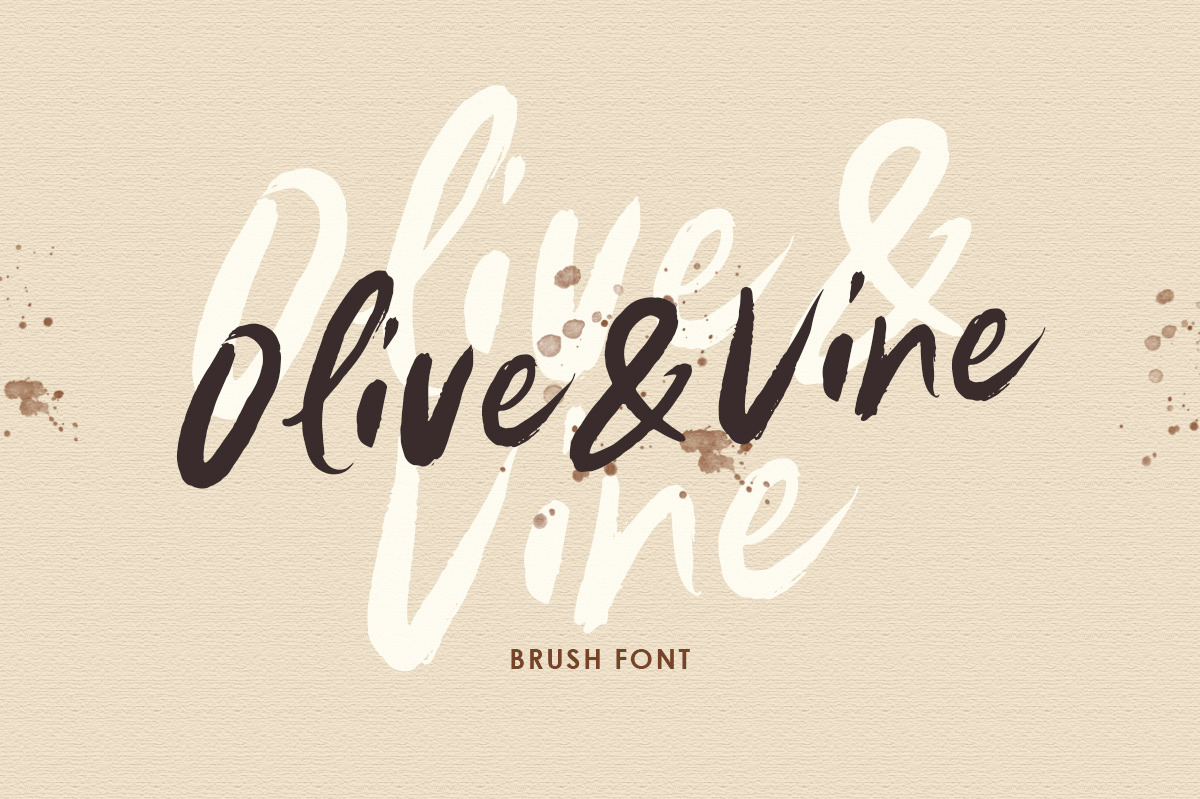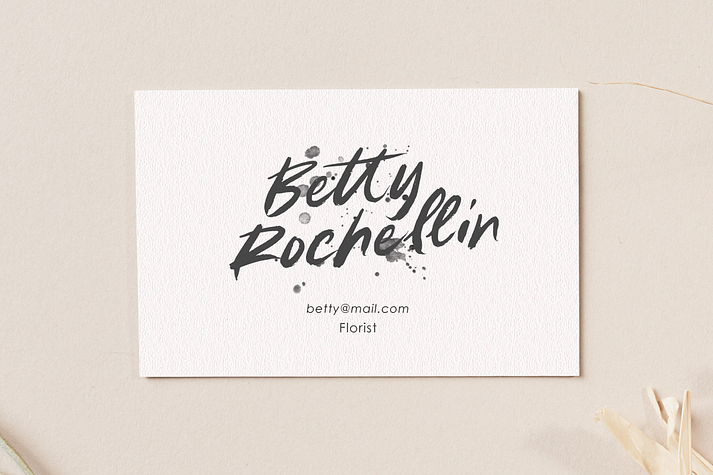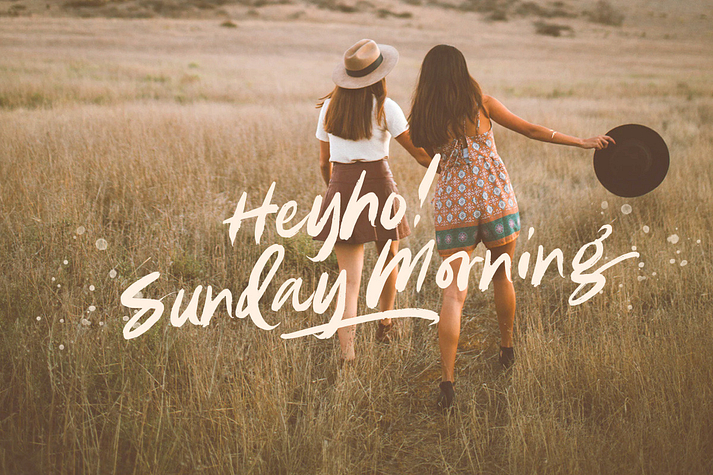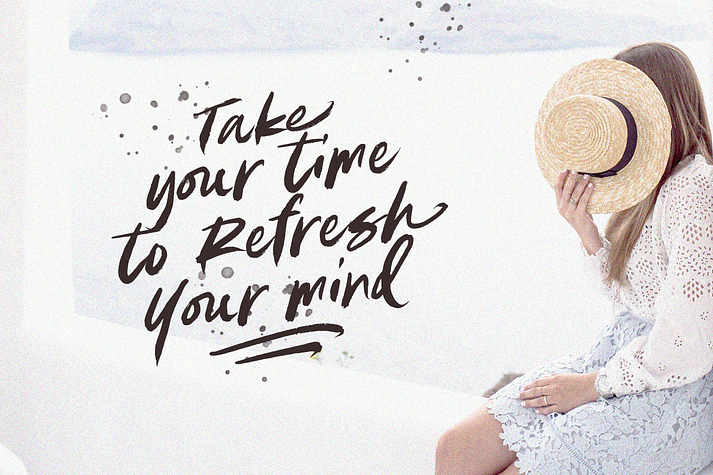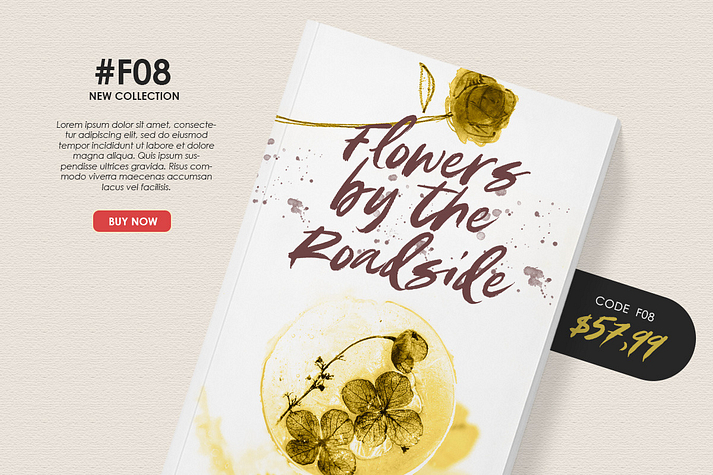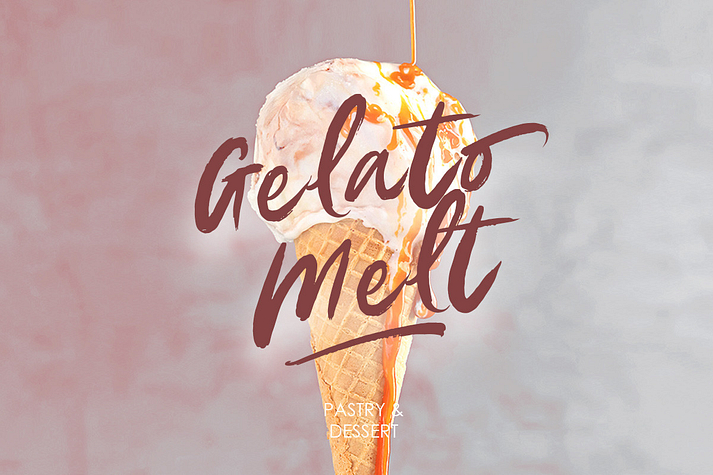
Olive Vine
Olive Vine is a font family published by Letterhend Studio.
Olive & Vina is a bold hand drawn brush script which is purposely made for headline, display or logotype, and signature which need a standout appearing. This font is also suitable to be applied especially in logo, and the other various formal forms such as invitations, labels, logos, magazines, books, greeting / wedding cards, packaging, fashion, make up, stationery, novels, labels or any type of advertising purpose.
• uppercase & lowercase
• numbers and punctuation
• multilingual
• alternates & ligatures